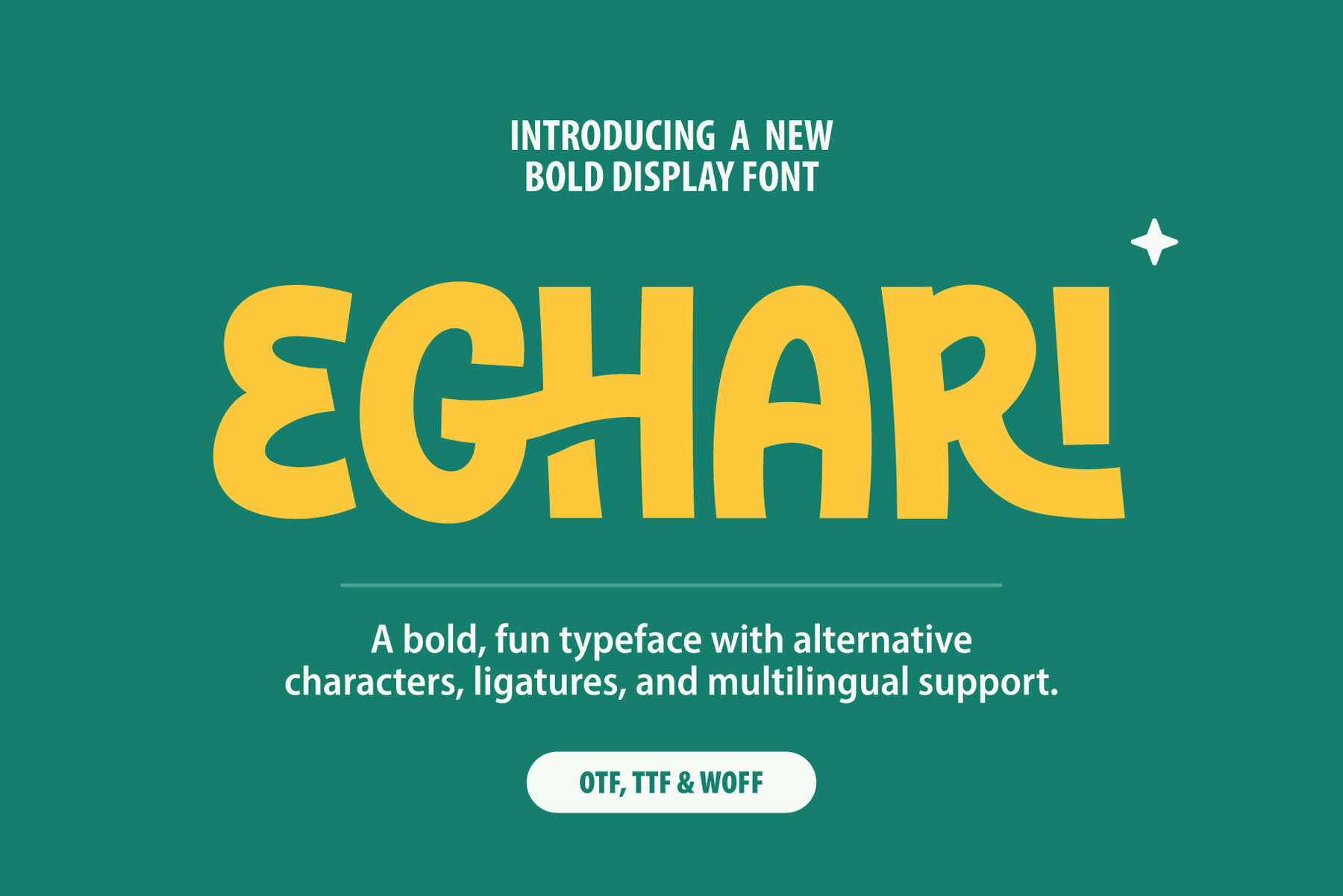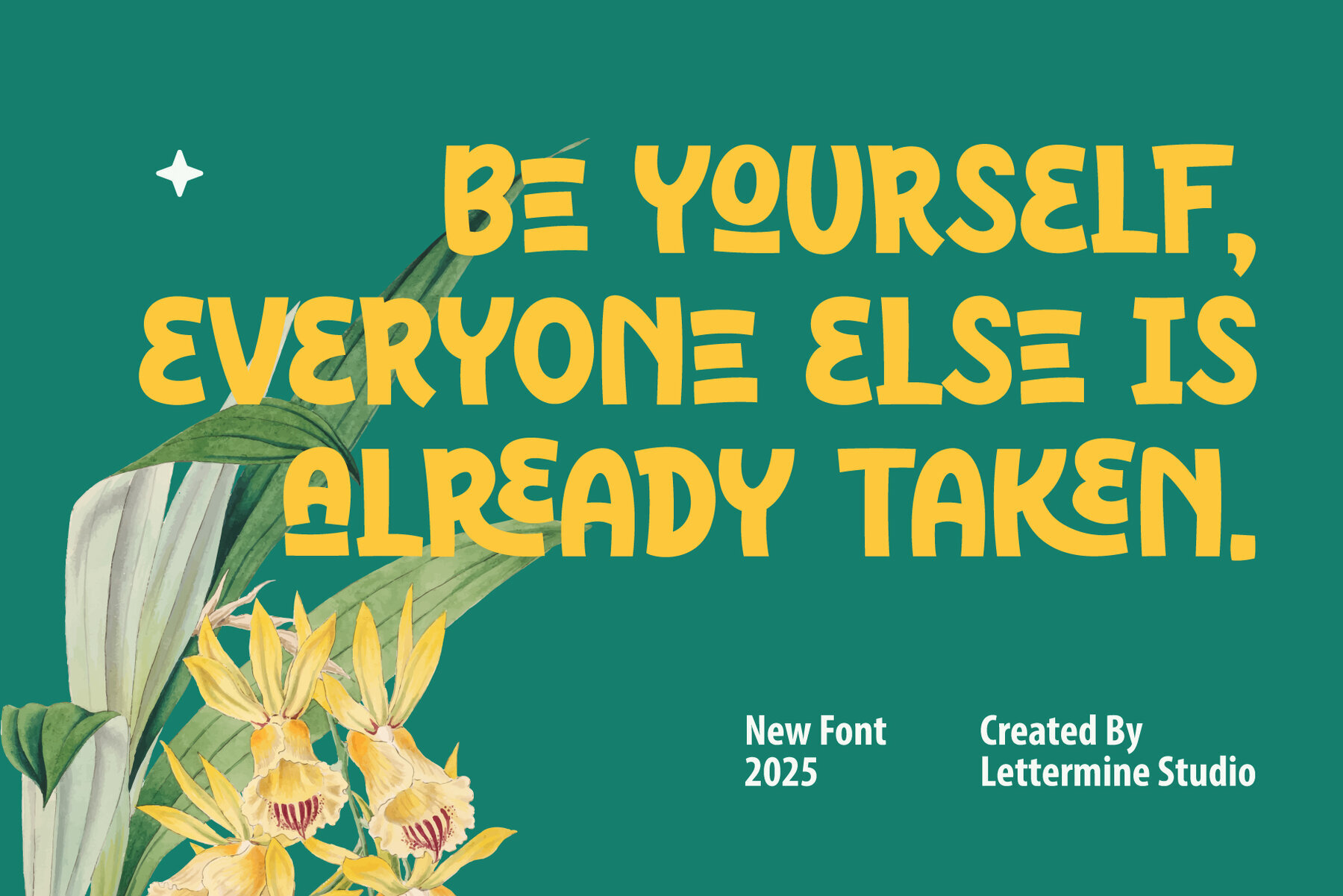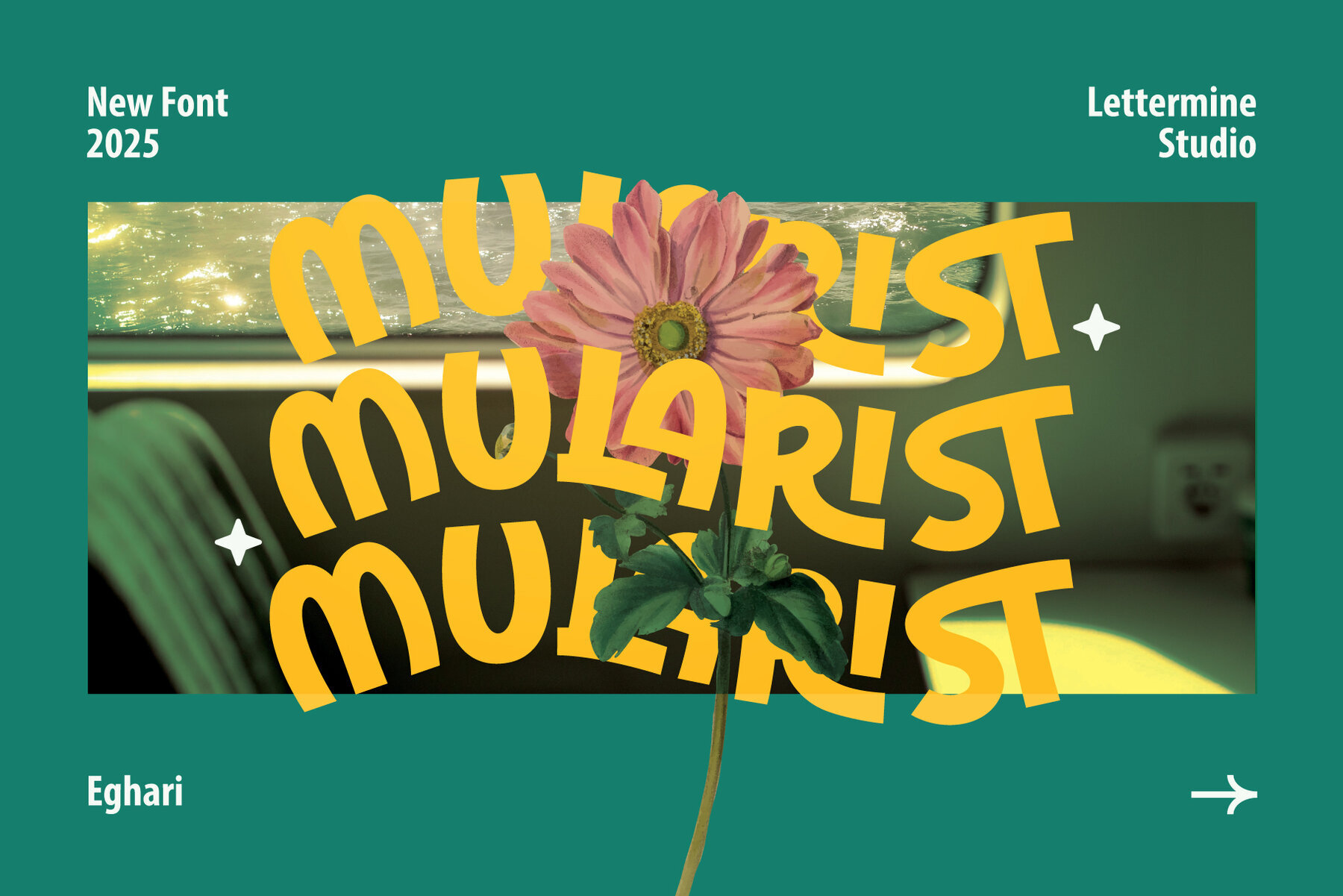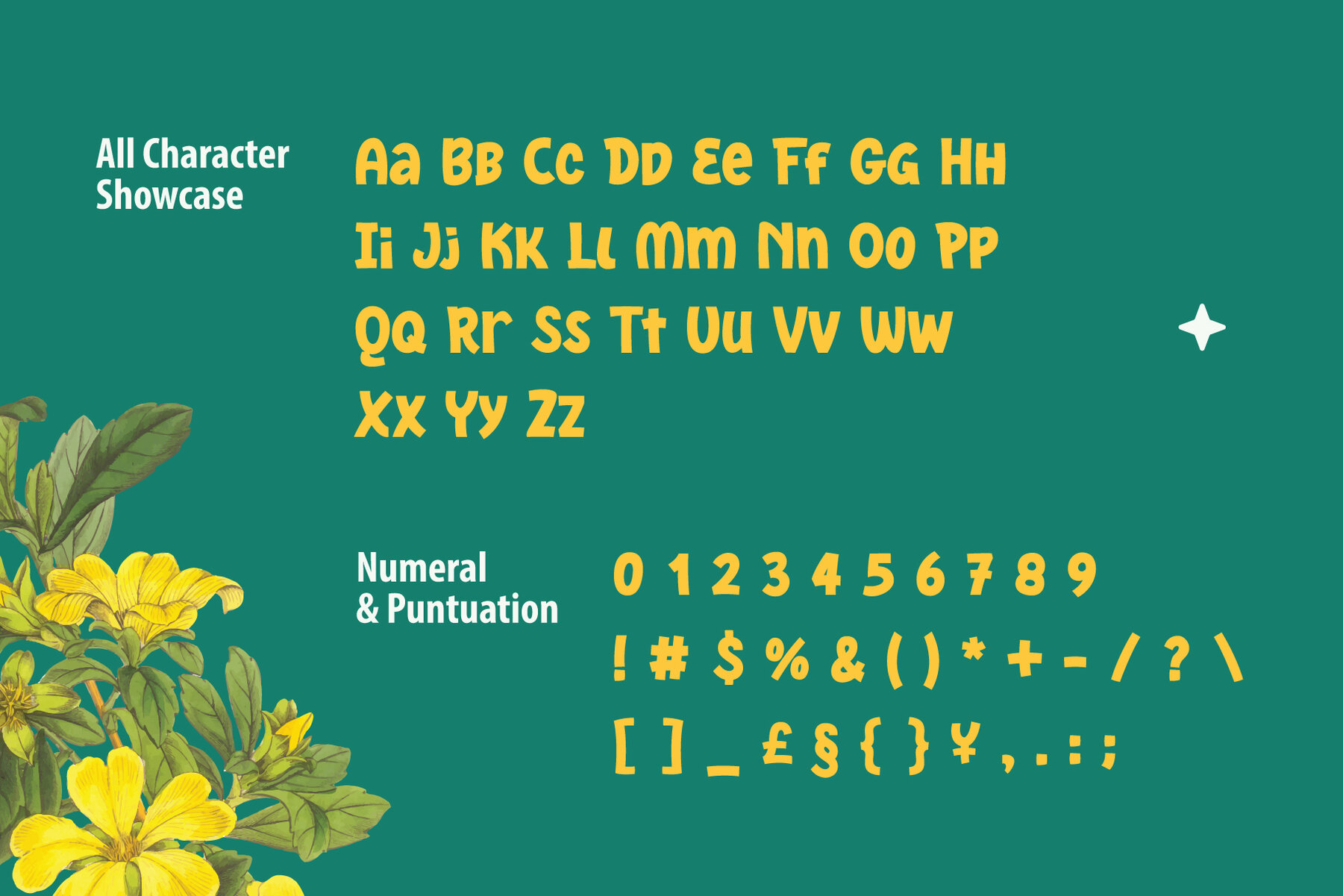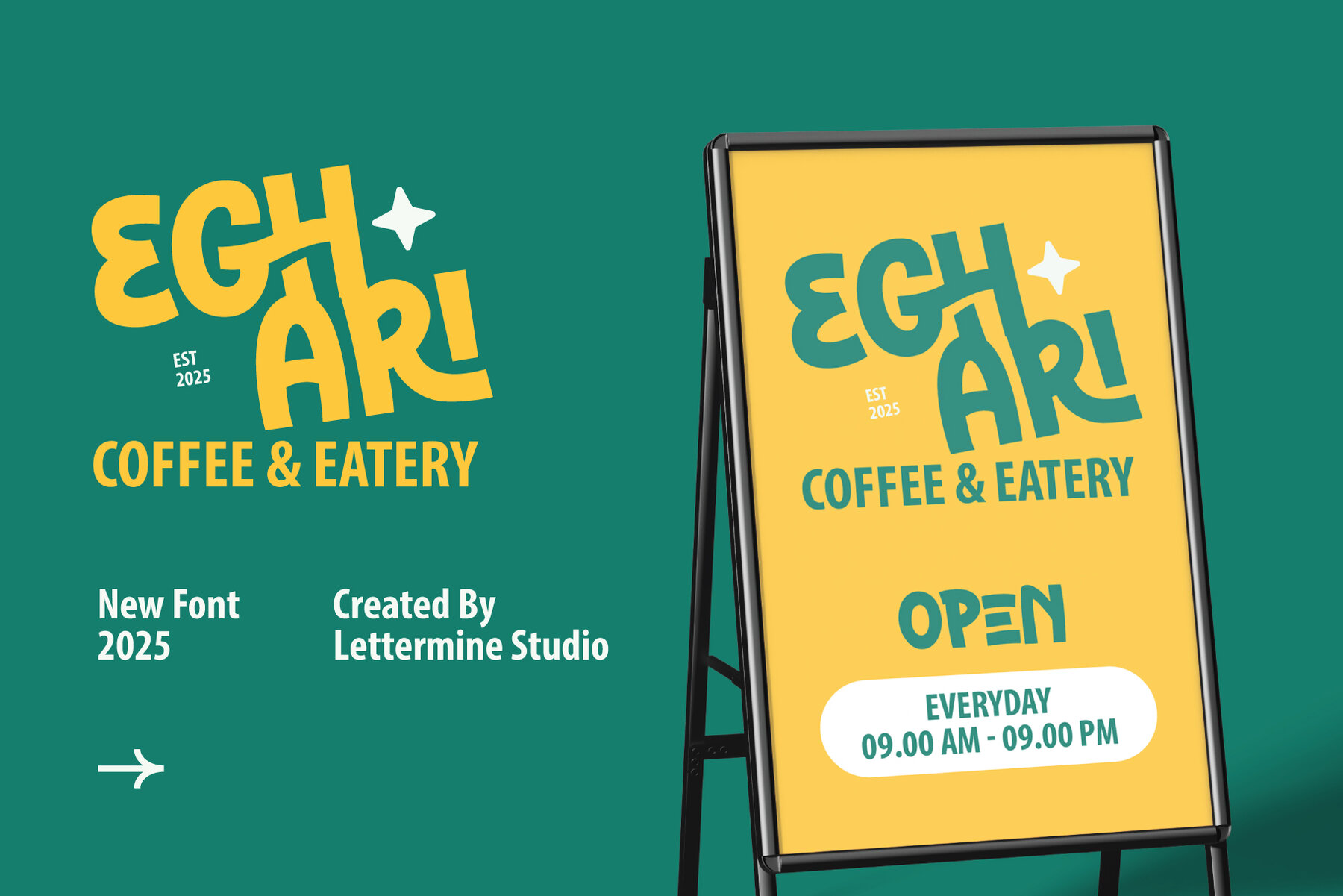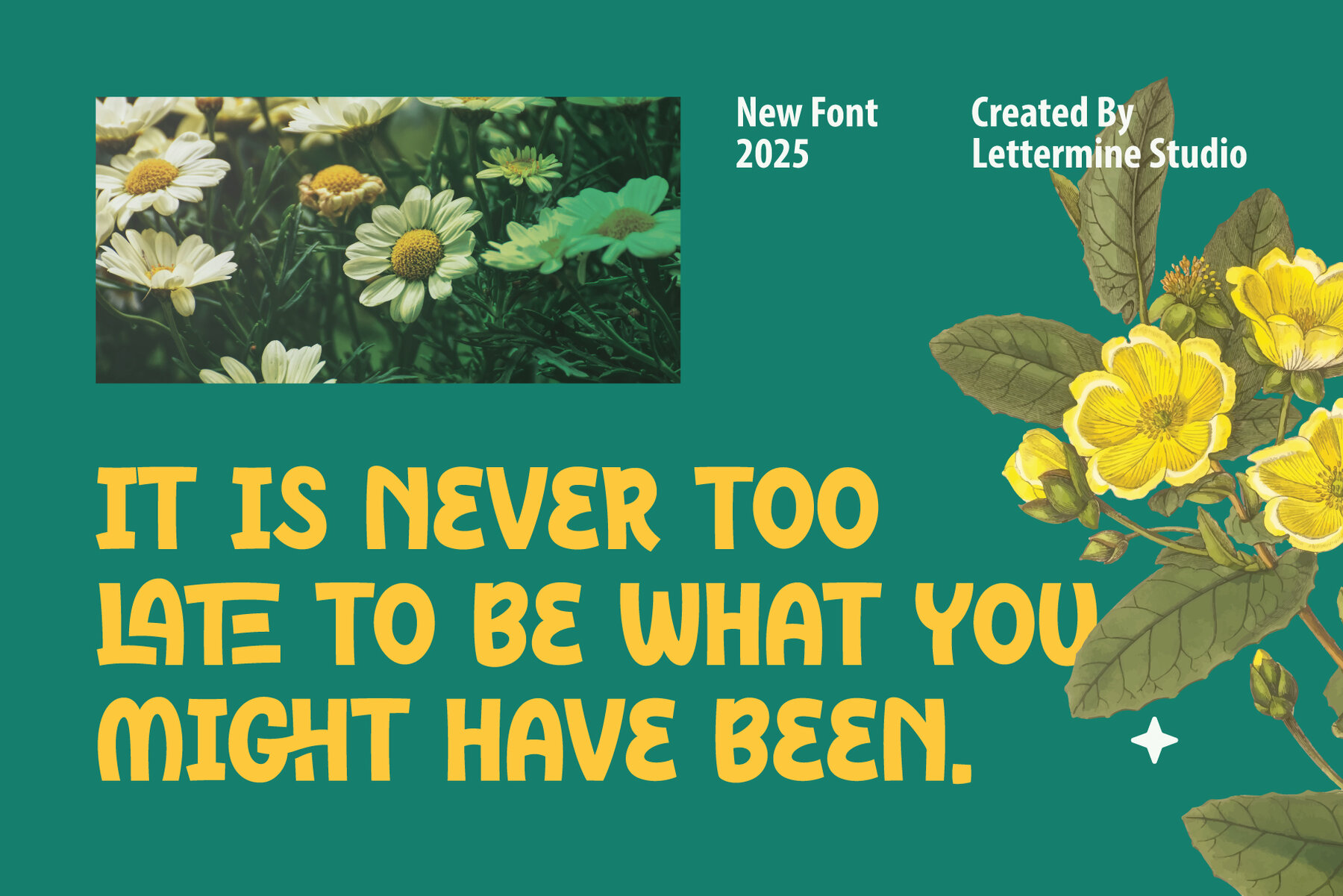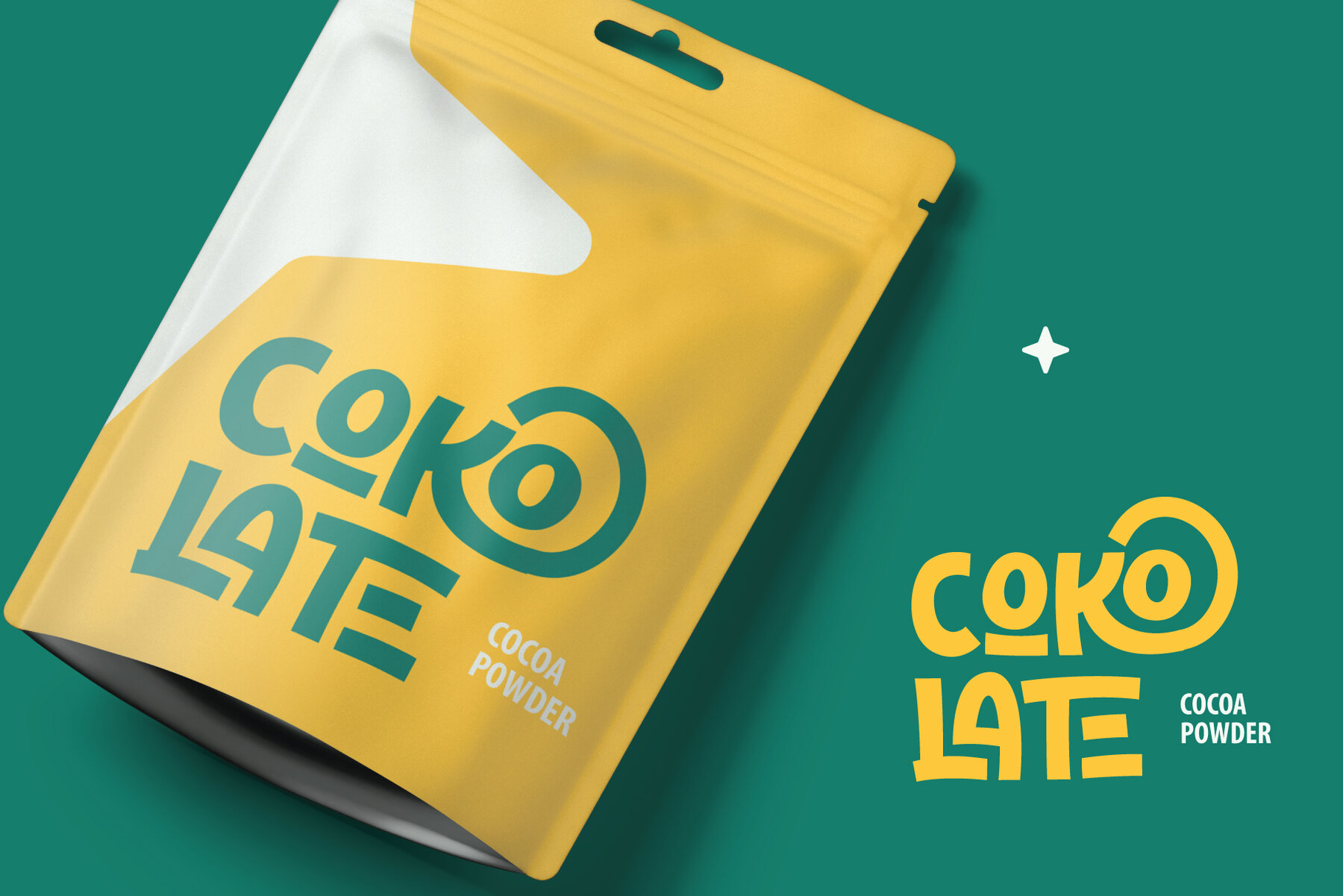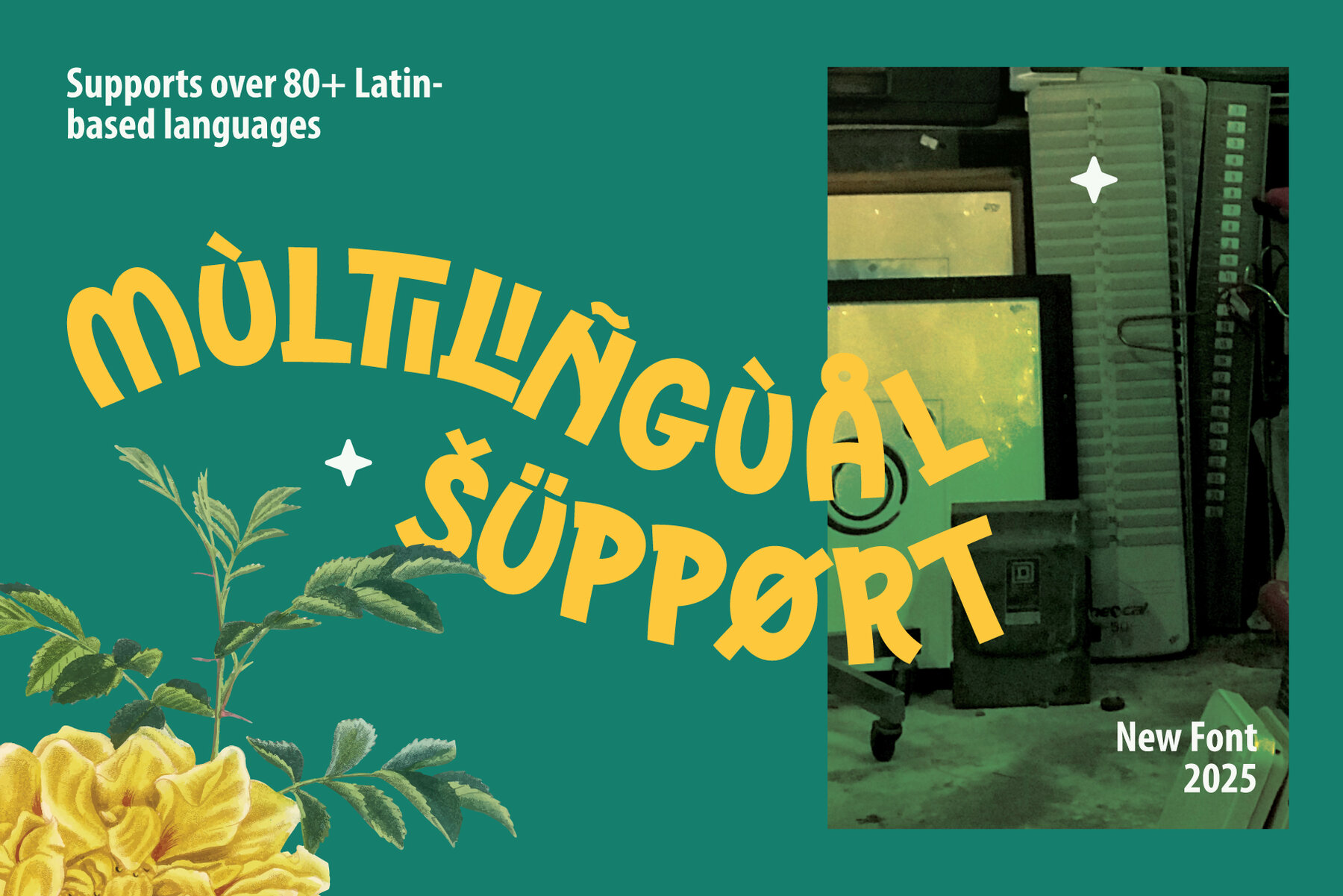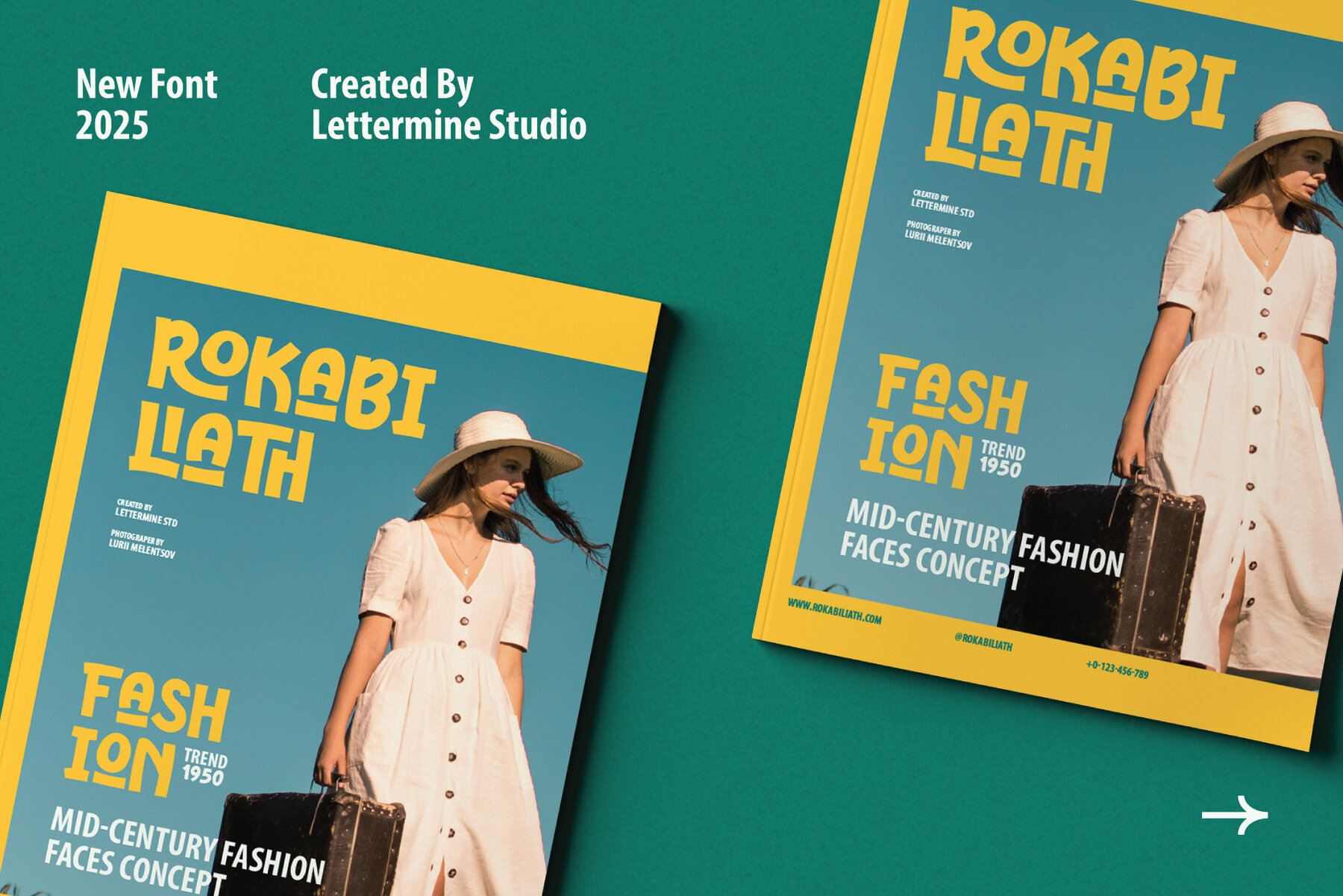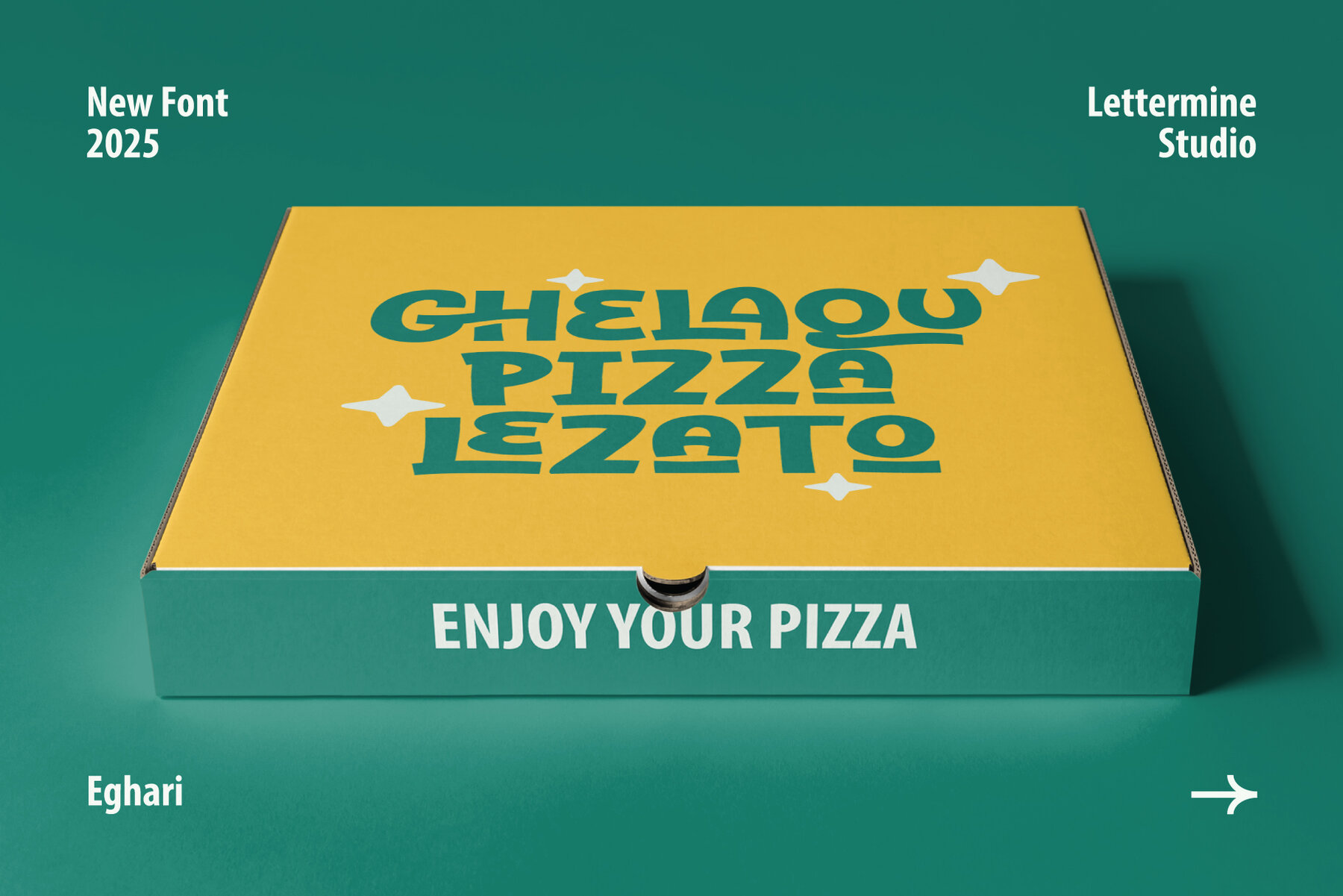
Eghari Font
Eghari
Immerse your projects in a world of fun and charm with Eghari, a bold, energetic display font from Lettermine Studio. Eghari captivates with its chunky curves and quirky letterforms, effortlessly drawing attention and sparking joy. Ideal for digital packaging mockups, educational designs, playful branding, social media content, and cheerful promotional materials, this typeface adds personality and creativity to every letter. Whether crafting a kids-themed project, designing eye-catching poster titles, or creating bold graphic layouts, Eghari ensures your work stands out. Note: Previews do not include mockups, images, or illustrations in the download.Eghari: Playful Bold Display Font